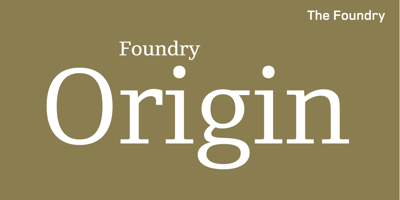
Foundry Origin Font Family was designed by Freda Sack, David Quay, Stuart De Rozario and published by The Foundry. Foundry Origin contains 7 styles and family package options. Foundry Origin has an elemental quality hinting at its ‘Egyptian’ roots. Developed out of the desire to create a serif typeface with a difference, Foundry Origin’s elegant design and versatile family of weights, with lyrical cursive italic, generous x-height and classical proportions, make it ideal for editorial and information design. A quiet design with a big presence, tipped to become a modern classic.